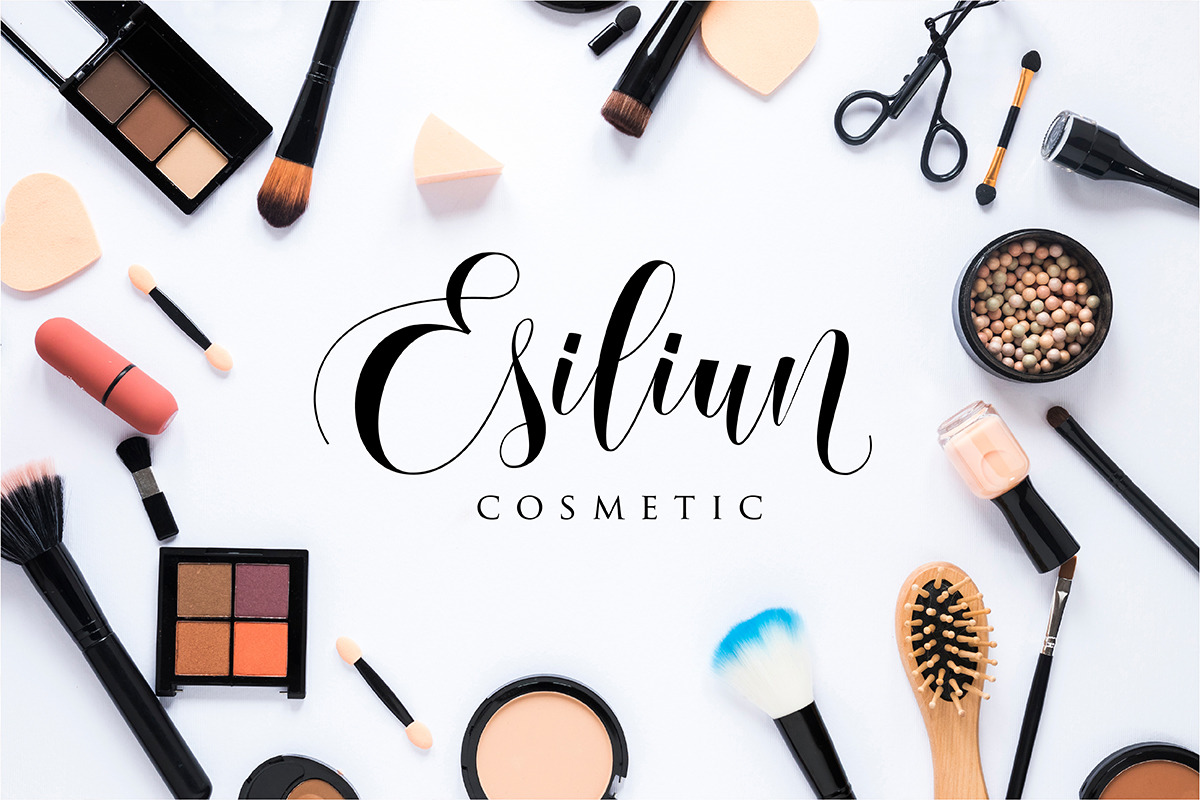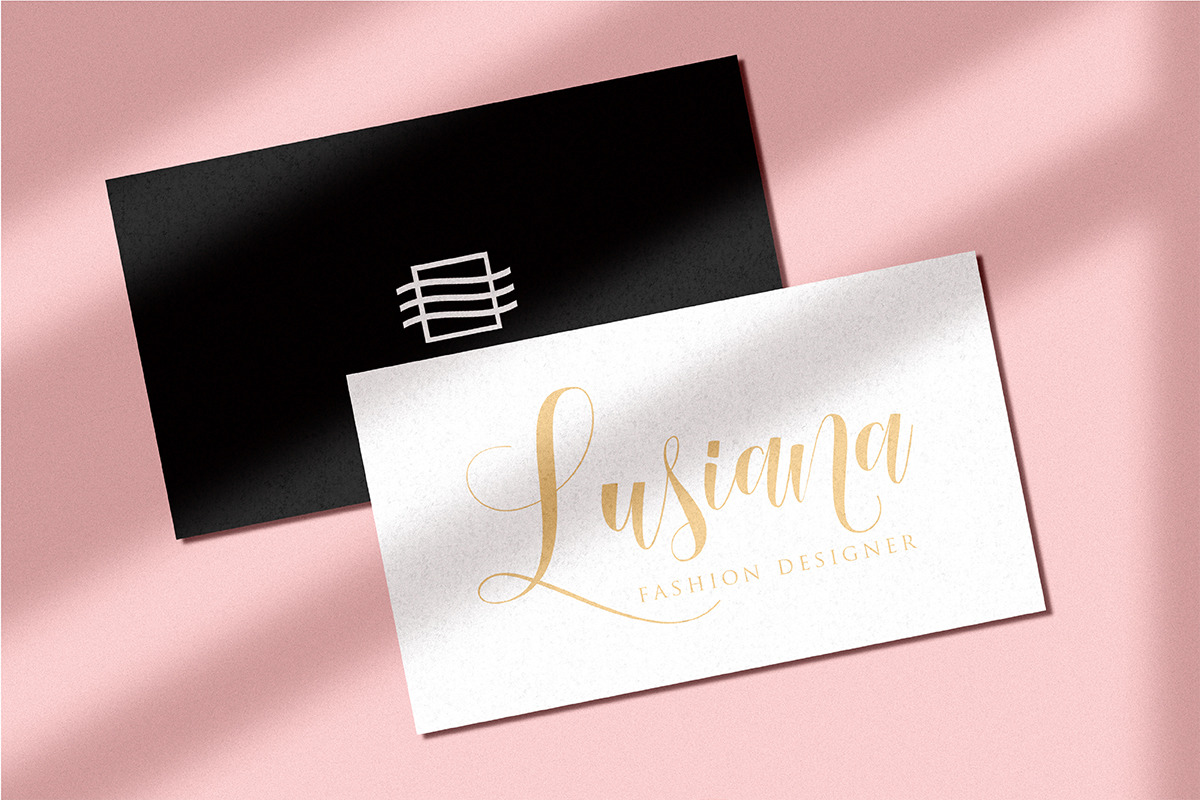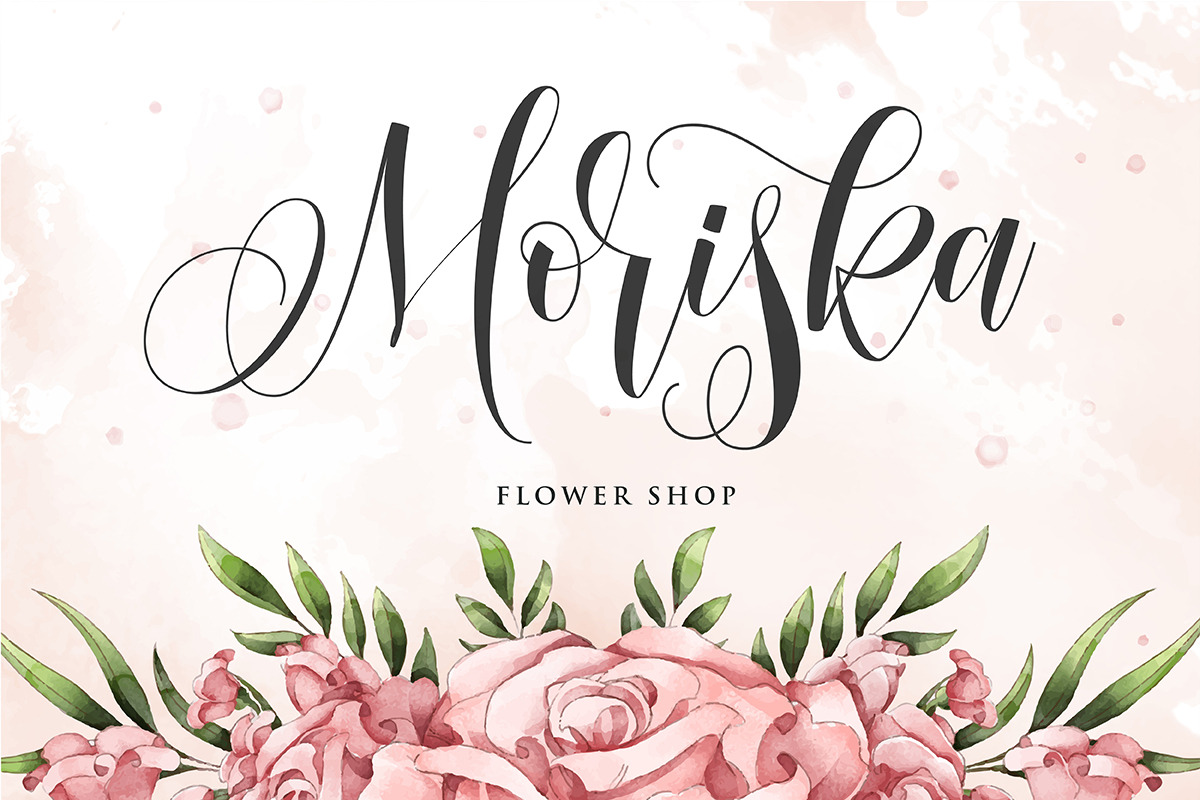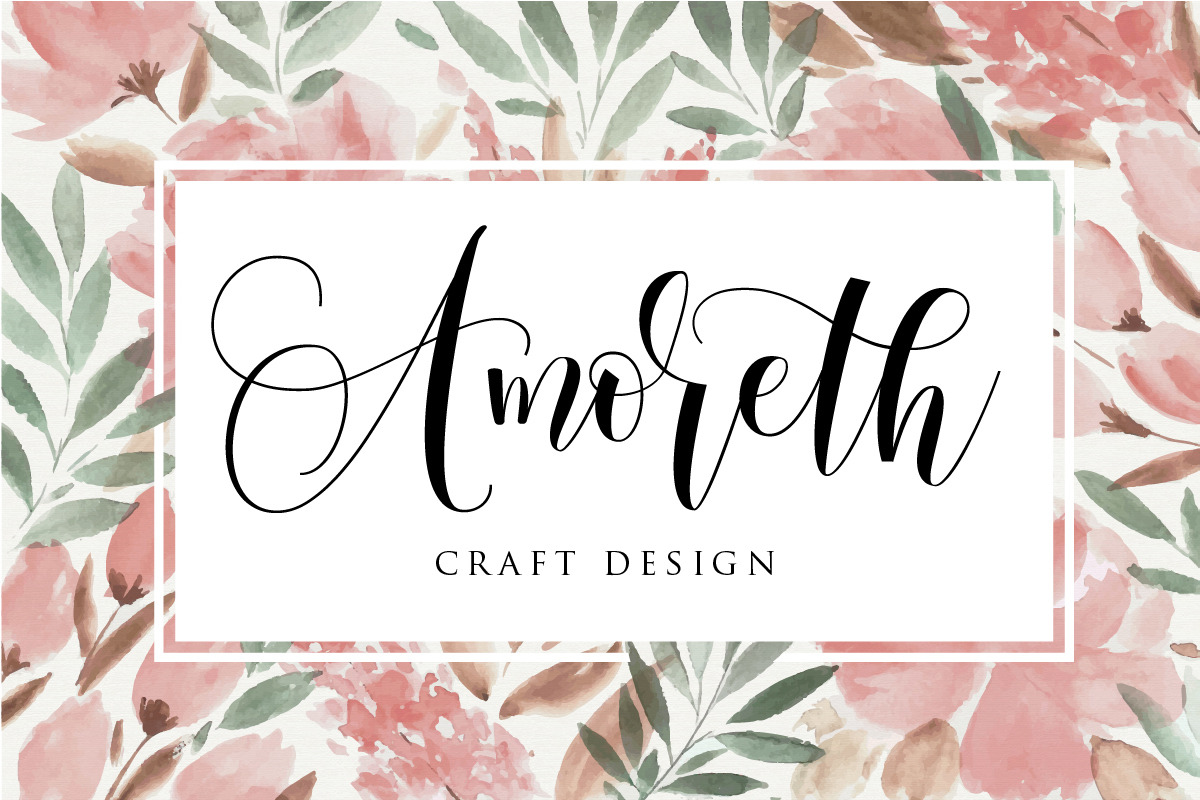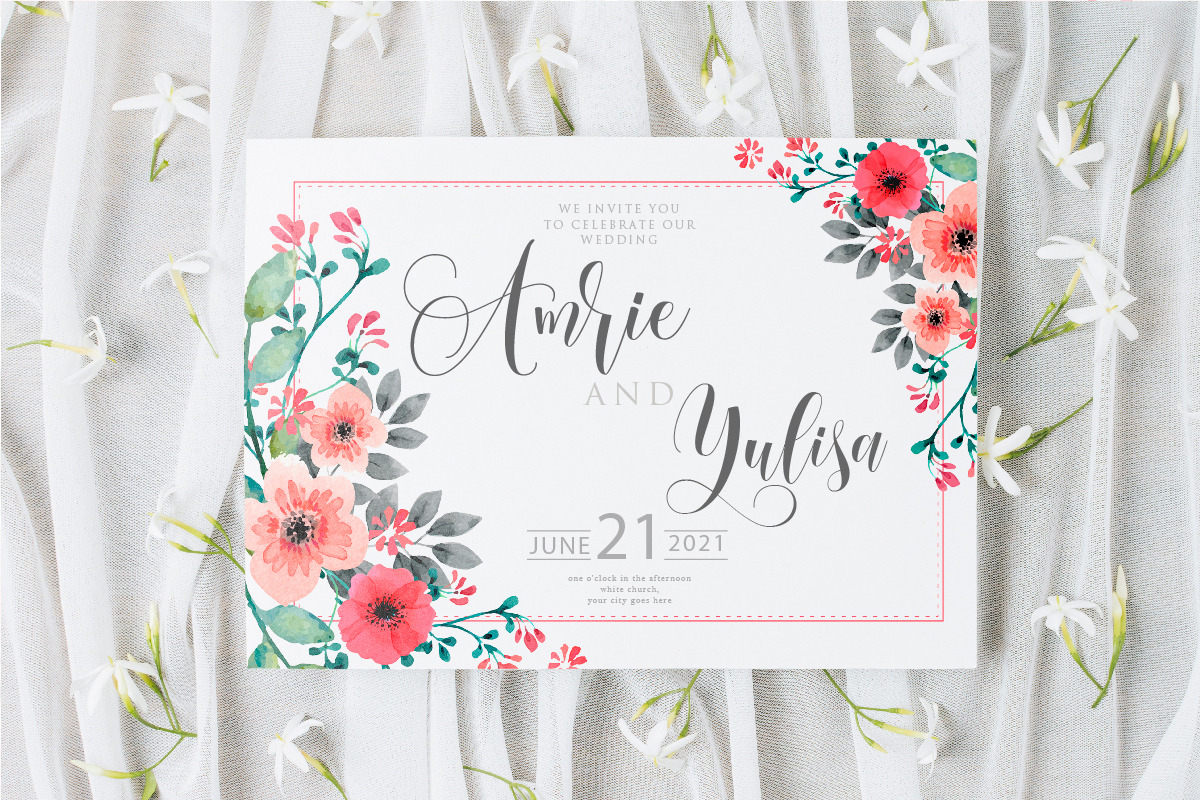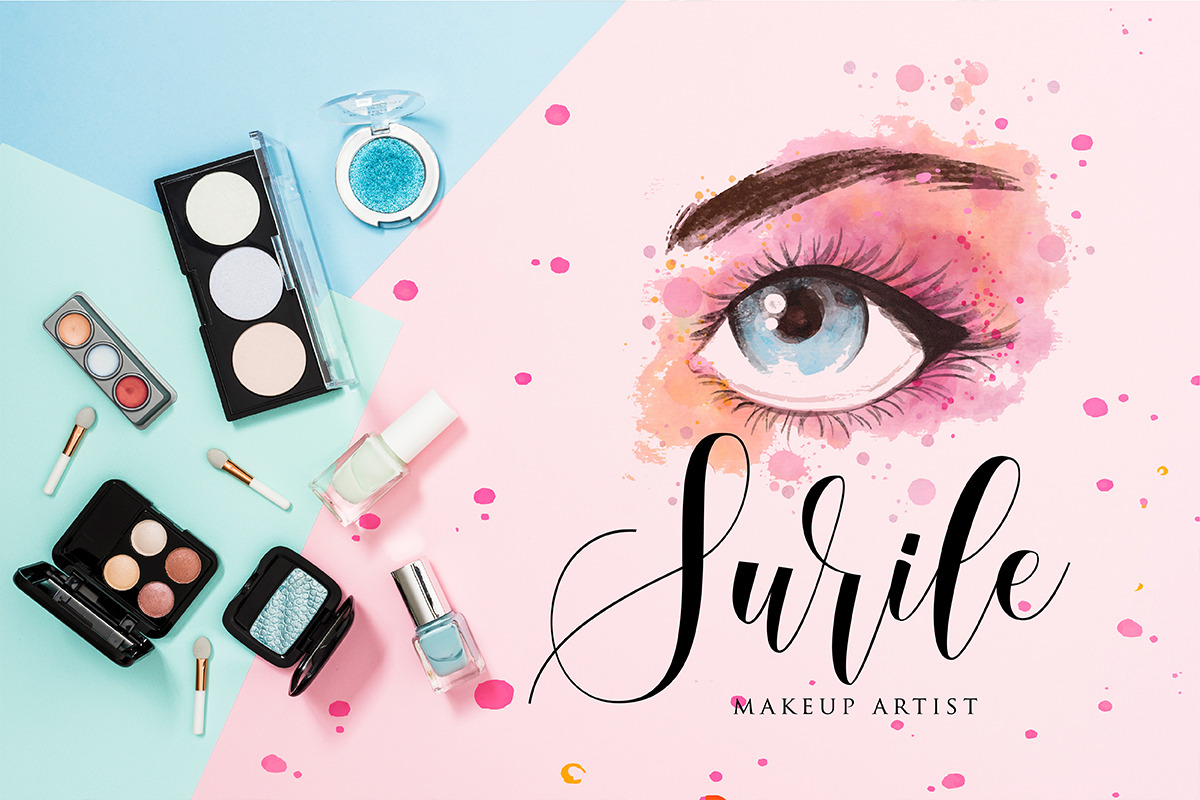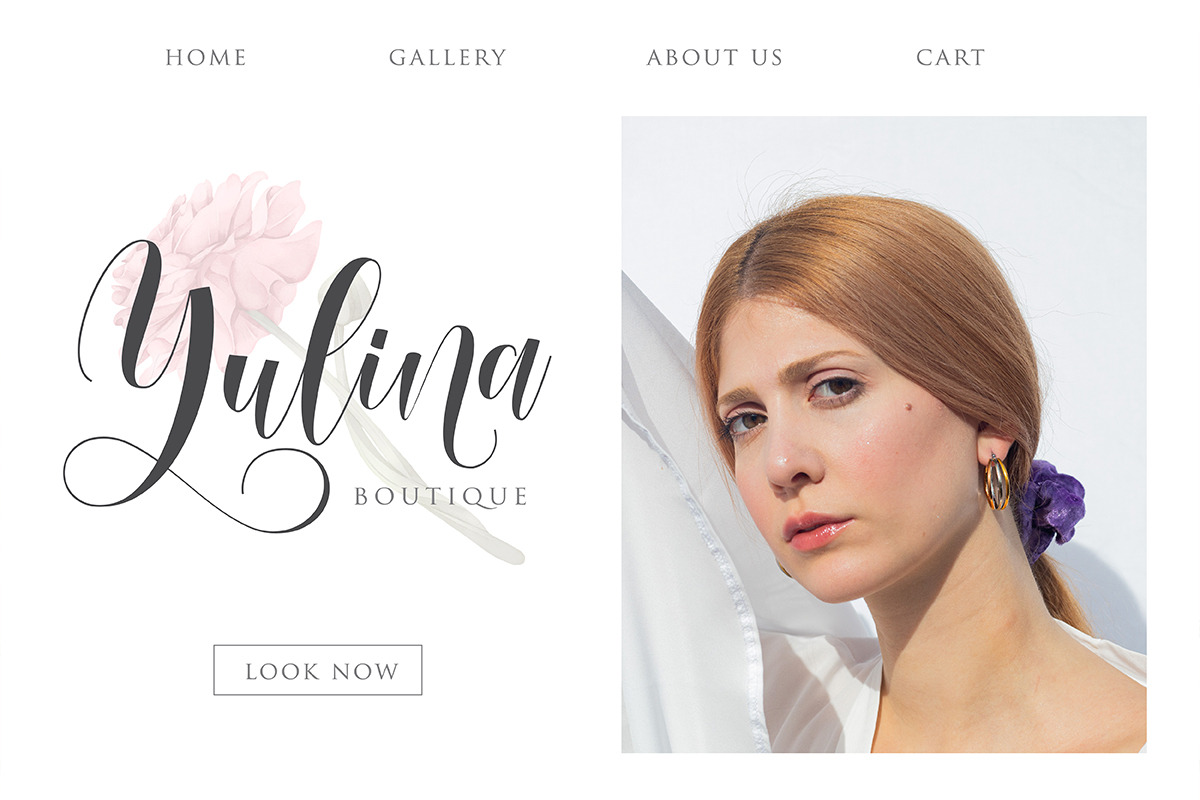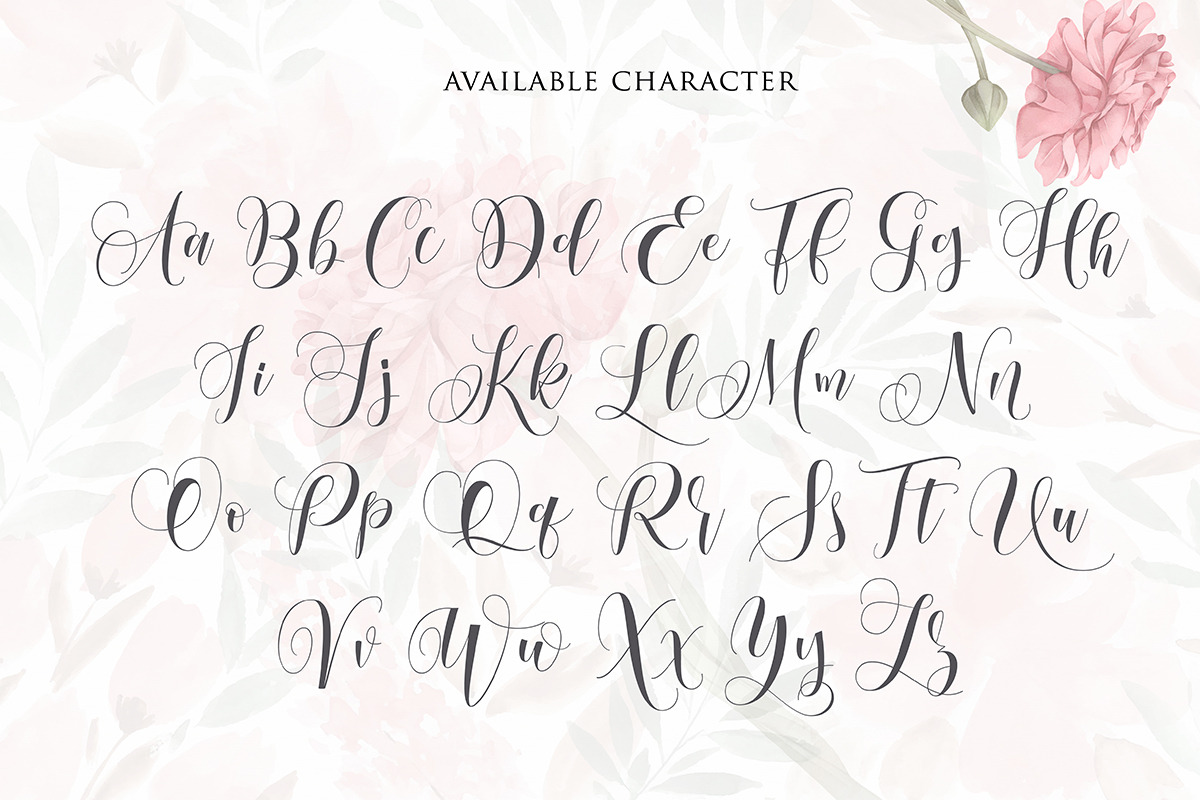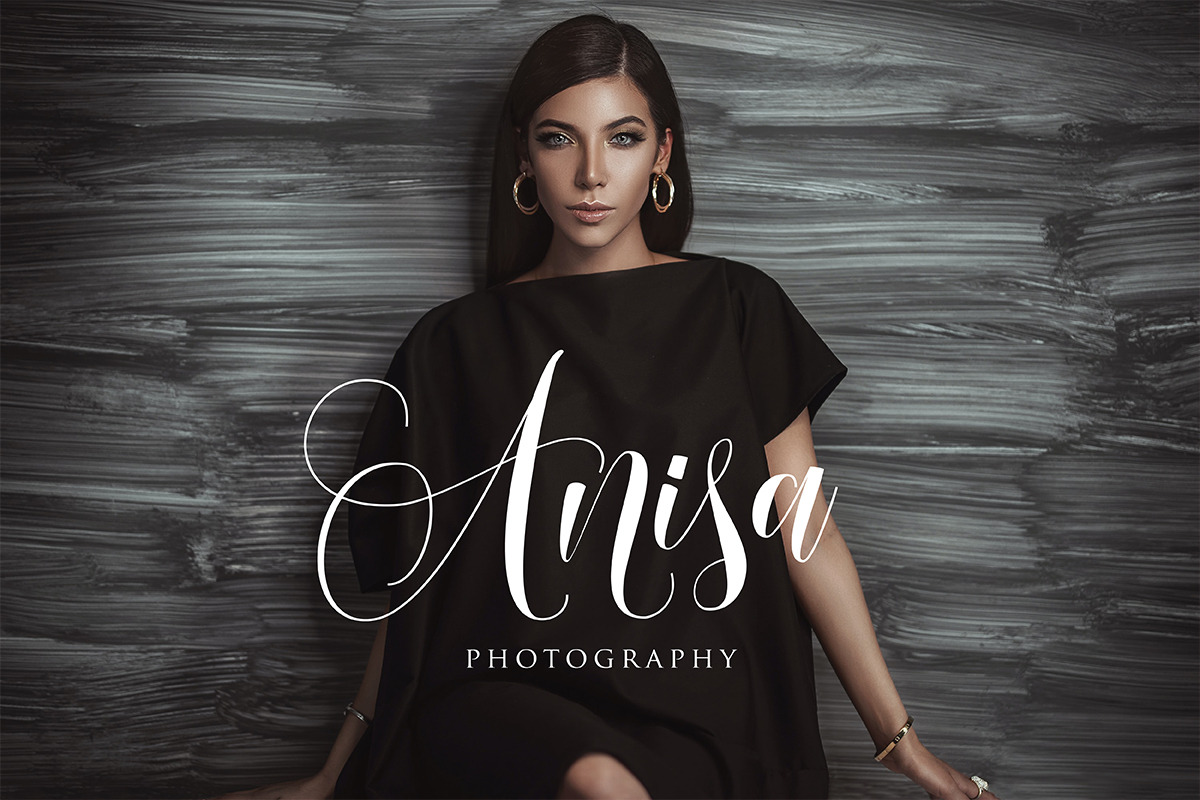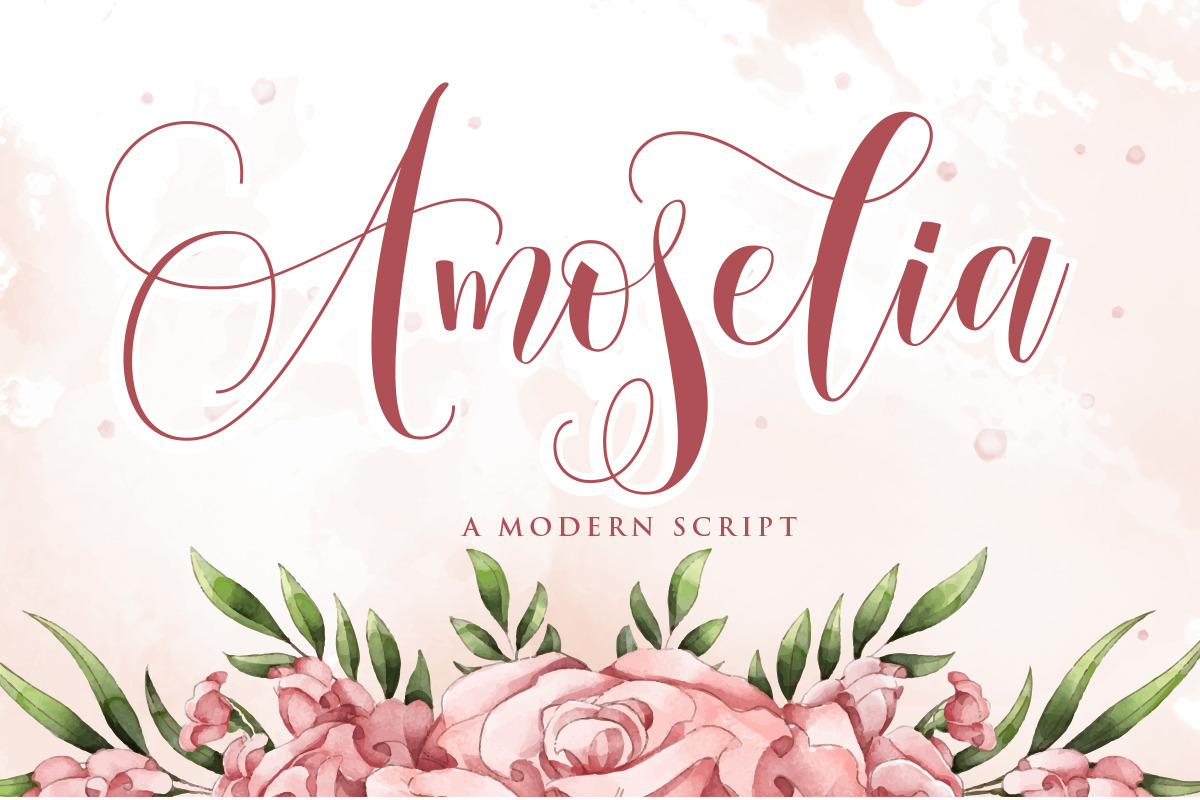
Amoselia - Beauty Script Fonts
Amoselia is a beautiful and flowing handwritten font with beginning and ending swash.
It looks beautiful on a variety of designs requiring a personalized style, such as wedding invitations, thank you cards, weddings, greeting cards, logos and so on. This font is PUA encoded which means you can access all of the glyphs and swashes with ease!
Amoselia a new fresh & modern script with a handmade calligraphy style, decorative characters and a dancing baseline! So beautiful on invitation like greeting cards, branding materials, business cards, quotes, posters, and more!!
You can mix and match with Opentype feature:
More than 316 of glyphs
Stylistic sets from ss01 to ss04
Multilingual Language
12 ligatures